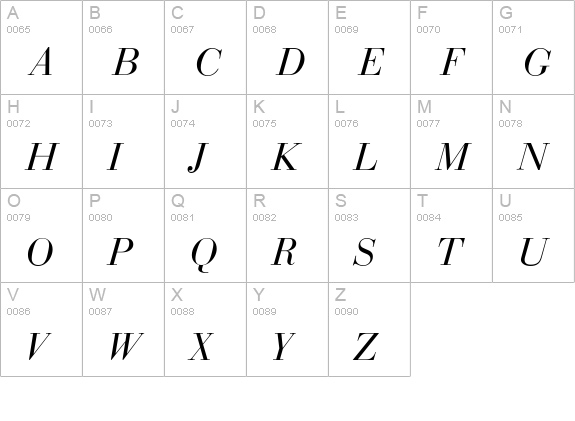
Bodoni-Display-Italic Font Details
Bodoni-Display-Italic is a distinctive, italic variant in the Bodoni typeface family \xE2\x80\x94 well suited to design and typography projects.
The Bodoni Display Italic font is a sleek and elegant typeface that exudes sophistication and modernity. Its slanted italic design adds a touch of flair to any text, making it perfect for adding a touch of style to your projects. The high contrast between thick and thin strokes gives this font a sense of drama and impact on the page. Best of all, this font is available for free download at FontsMarket.com. Whether you're working on a professional project or a personal creative endeavor, the Bodoni Display Italic font is sure to make a statement. Its timeless design and versatility make it a must-have addition to any designer's toolkit. Download it today and see how it can elevate your work to the next level.